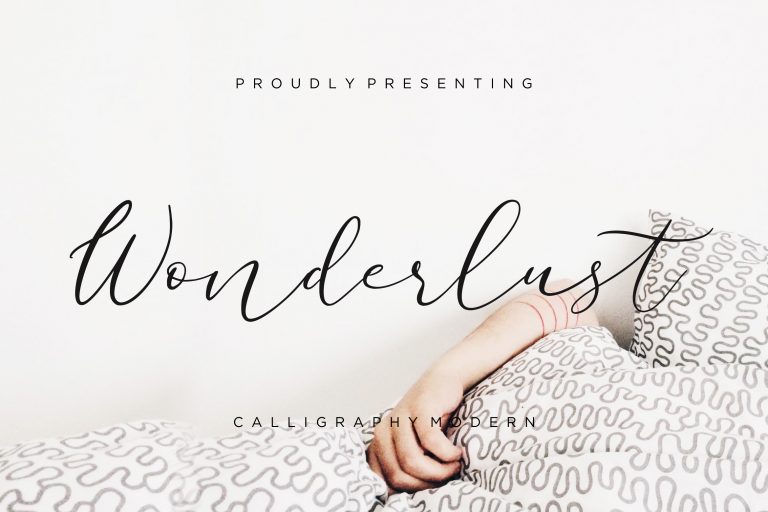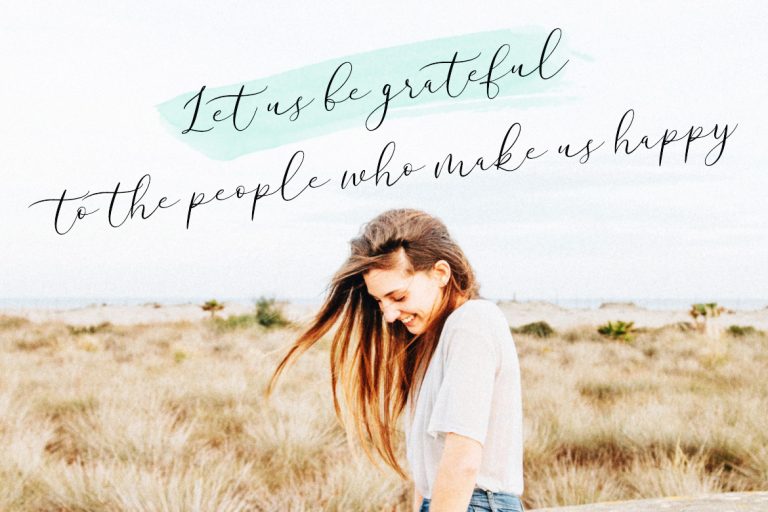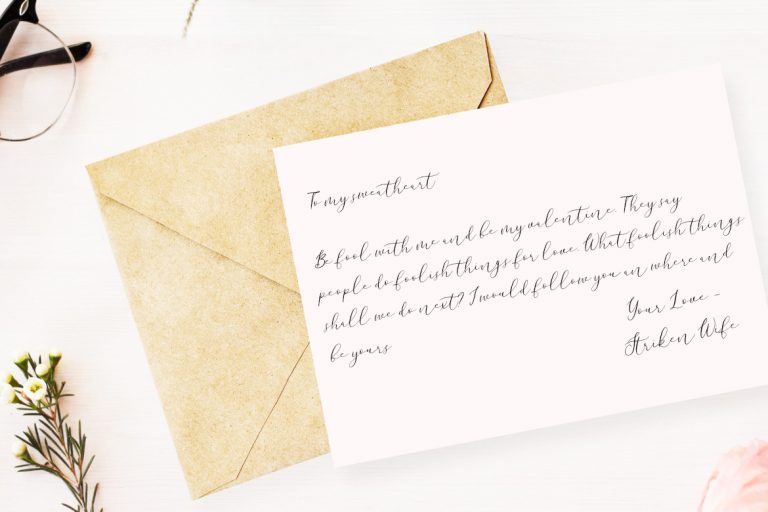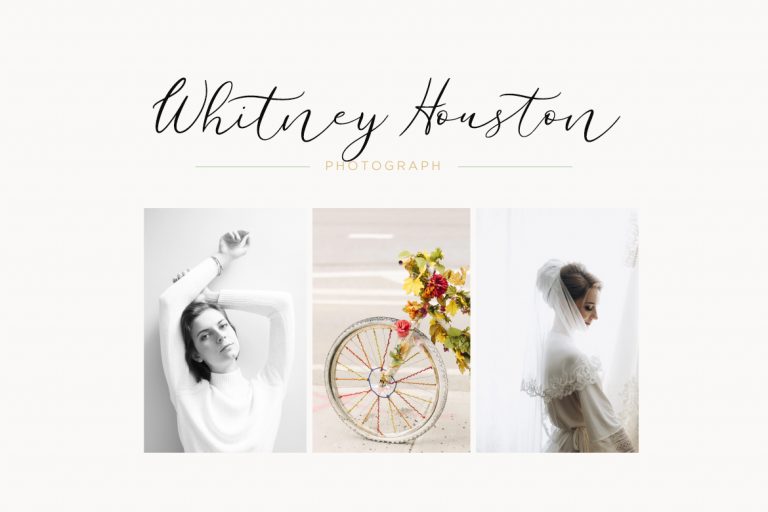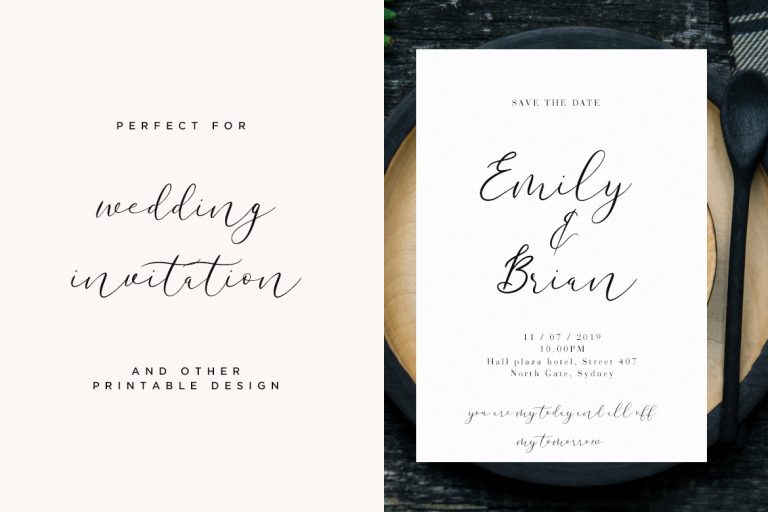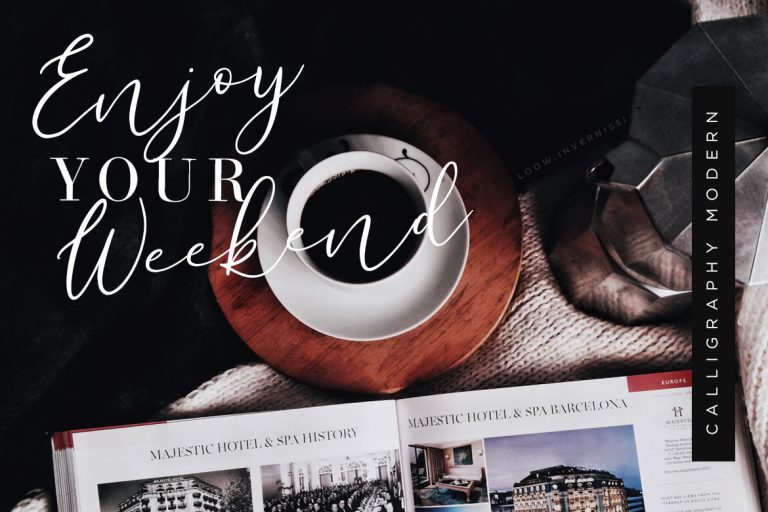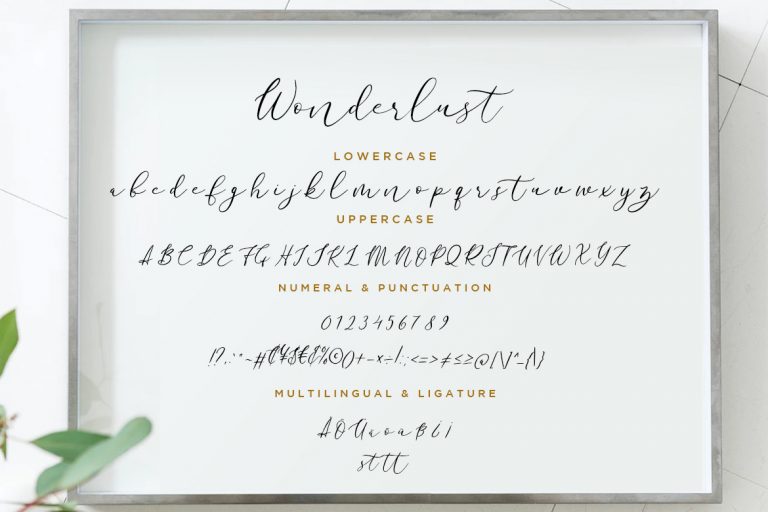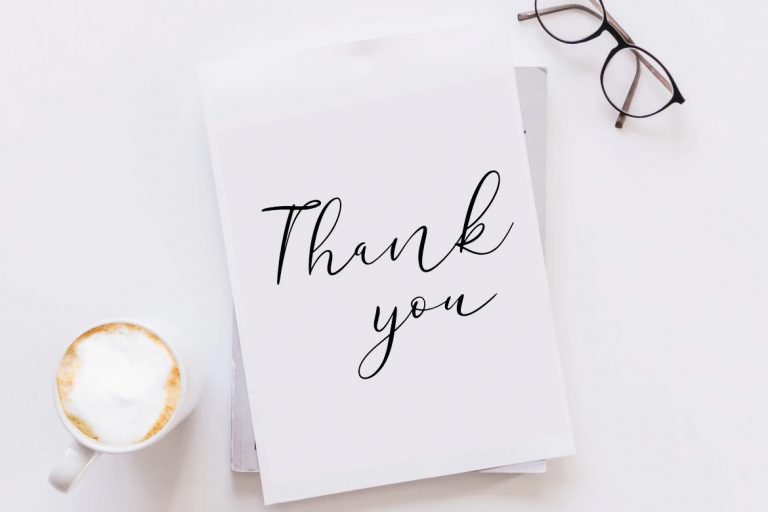
Wonderlust is calligraphy modern font with natural and elegant style.
Wonderlust is perfect for branding projects, logo, wedding designs, social media posts, advertisements, product packaging, product designs, label, photography, watermark, invitation, stationery and any projects that need handwriting taste.
• Fonts include multilingual support for; ä ö ü Ä Ö Ü ß ¿ ¡
Wonderlust Calligraphy Modern